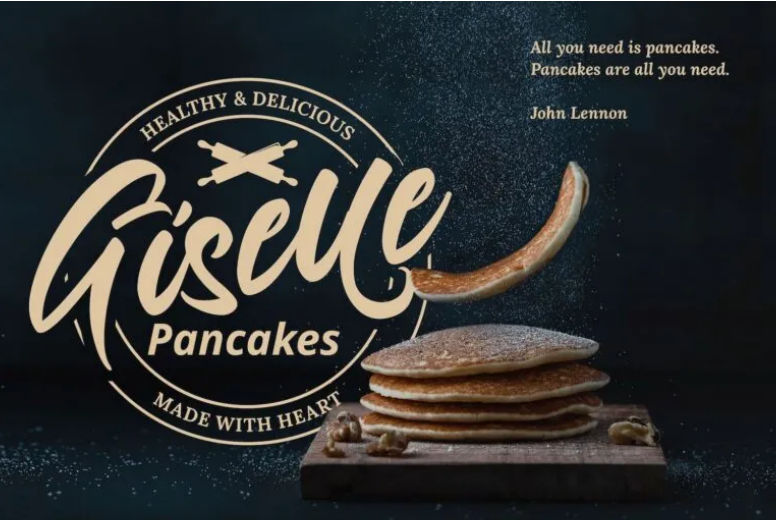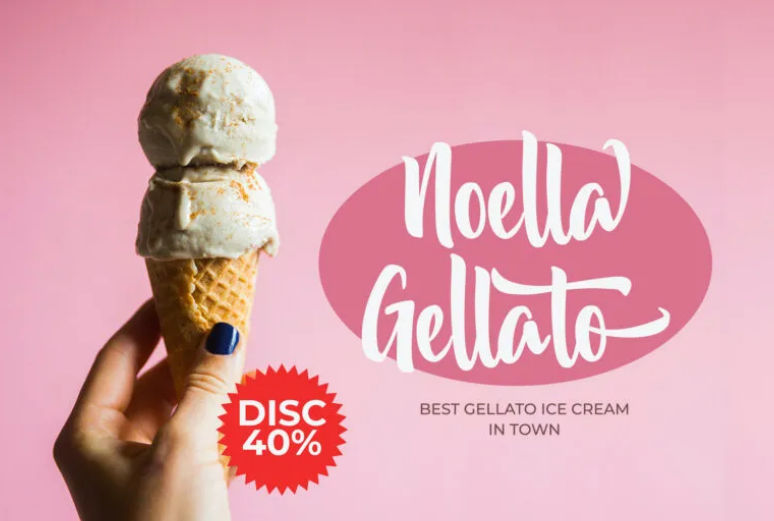
25+ Food Fonts to Quickly Make Your Customers Drool
You can’t ignore that food fonts significantly influence culinary business designs besides graphics and visuals. Hence, you must choose a suitable font while creating the menu or website design for your food business. However, if you’re unsure what to pick, you may need to look for some references here.
25+ Best Food Fonts to Elevate Your Customers’ Appetite
Juice up your food and beverage business visual designs using the best fonts for food business in the following list!
Fonts for Burger
According to Print, you must find a bold and ‘yummy’ font representing a burger shop. Don’t forget to make it unique yet easy to read for customers.
Stringlabs Creative – Bold Script Font
You may consider using Stringlabs Creative font for your burger stall. Its unique yet classy style can immediately catch your potential customer’s attention!
Falcon Harfing – Bold Script Font
What font is perfect for branding, especially to showcase burger products? The answer is none other than Falcon Harfing, which can make your product come alive.
Rineghan – Bold Script Font
Just as the picture tries to tell you, the font and the visual make it hard for you not to stare. The elegant swirl of the font is a head-turner for sure.
Beautiful Vibes – Bold Script Vintage Retro Font
Classy and vintage styles from Beautiful Vibes font are not only for motorcycle clubs. It’s also perfect for tasty food branding purposes.
Banyu Langits – Quirky Display Font
Do you prefer cool food fonts for your burger logo design? Consider adding bubbly Banyu Langits font and spread happiness through your food design!
Montages – Retro Bold Script Font
Fonts with classic retro style may perfectly suit clothing or coffee shops. But, it works great for classic burger products as well!
Amy Riyas – Textured Brush Font
Hand brush font never fails to grab people’s attention. It’s the same for Amy Riyas. Its beautiful strokes show how fine your food products are!
Pizza Food Fonts
When it comes to pizza, you want some scrumptious bites in every slice. Pick the font that represents how tempting your pizza is for your customers!
Bestallie – Bold Script Font
One of the best fonts for food like Pizza you can pick is Bestallie. Its curved and rounded style makes you curious about how well its pizza may be, right?
Rubeyma – Bold Script Font
Another choice of font you can use is Rubeyma. Its vintage style makes it irresistible.
Restu Bundah – Retro Bold Script Font
Who would assume that retro-style font fits pizza restaurants? It is a hot and trendy choice for various designs theme as well.
Brogads – Bold Script Retro Font
The long tail at the end of the last letter of the “pizza” word makes it look cool and free. Choose Brogads to show those vibes.
Rattu Aqilla – Textured Brush Font
A script font can always be the right choice for food fonts. Simple yet unique for branding.
Fonts for Seafood and Dimsum
Most culinary businesses use a modern script font to engage their customers, especially for dim sum and seafood menus. It shows the delightful and vibrant personality of the brand.
Rattoney – Bold Script Font
Rattoney holds power in captivating people. Its modern script font type can make your dining look sophisticated.
Marelan – Casual Handwritten Font
If you need to captivate a broad range of people, you may use Marelan as your font choice.
Raffles Bryant – Textured Brush Font
A font that looks like simple handwriting often holds a special meaning for people. It shows youth and free-spirited style.
Anttariksa – Brush Script Font
Other than Raffles Bryant, you can also pick Anttariksa to display your free spirit in the food business.
Pastry and Cake Food Fonts
Needs assistance in choosing pastry and cake fonts? One thing you should remember, you must be able to convey the warmth and softness of cake from your design. Hence, ensure you pick one of these font options for your bakery.